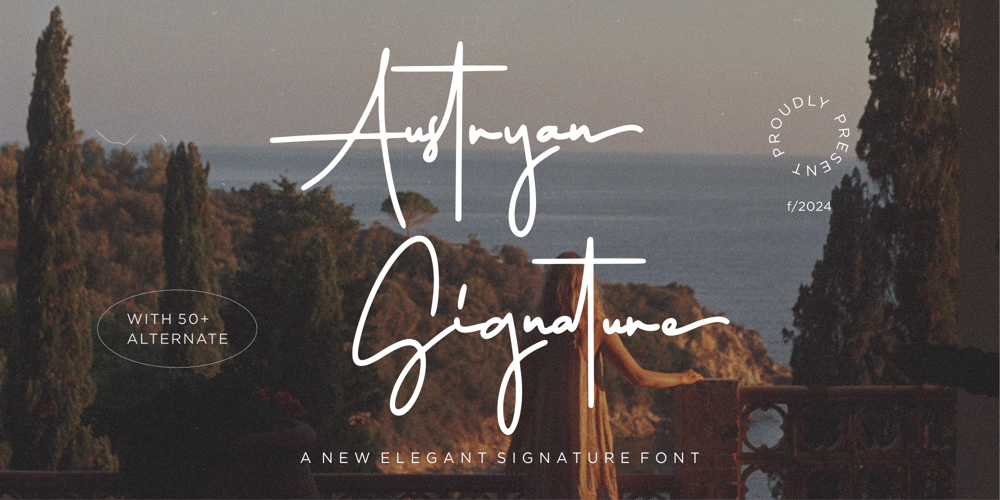
Austryan Signature
Austryan Signature font
Austryan Signature Font Family was designed by Annas Rifky Anhar and published by Bhubbiberry Studio. Austryan Signature contains 1 styles and family package options. Unveiling Austryan Signature, a quintessential embodiment of elegant luxury in typographic design. This exclusive Signature Font exudes sophistication with over 50+ unique Swash Alternates and Ligatures that elevate any textual presentation. Perfectly suited for high-end product packaging, establishing strong brand identities, editorial designs, social media aesthetics, and wedding stationery. Austryan Signature is the go-to font to eloquently articulate and highlight words against any backdrop. A true asset for those craving for a refined and unique typography experience.